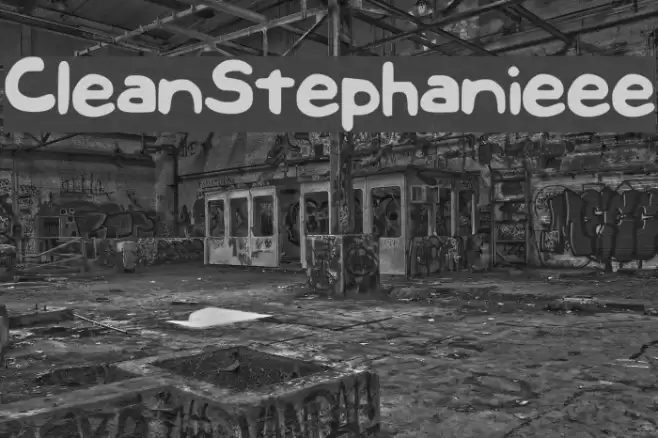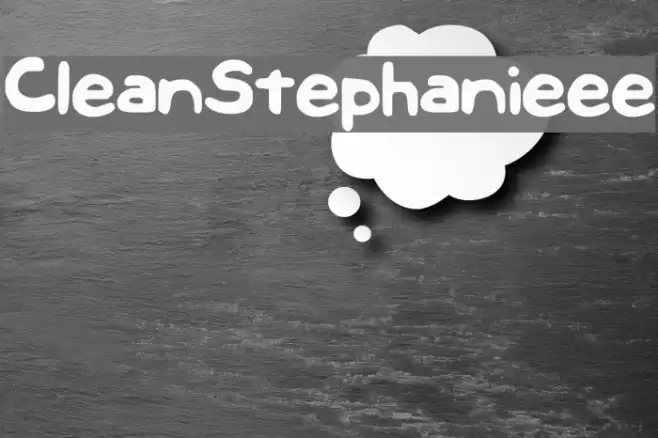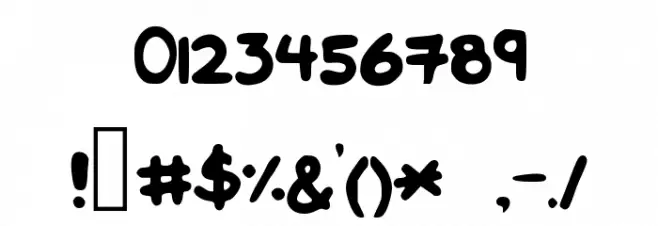
CleanStephanieee Font
CleanStephanieee Description
This playful and bold font features rounded, thick strokes that give it a friendly and approachable appearance. The characters are slightly irregular, adding a whimsical touch to the overall design. The uppercase and lowercase letters maintain a consistent style, with a uniform thickness that ensures readability. The numerals and special characters are designed to match the playful nature of the alphabet, making this font suitable for creative and informal projects. Its boldness and unique character shapes make it stand out, while the rounded edges soften its impact, making it versatile for various applications.
A playful, bold font with rounded, thick strokes and a whimsical style from Handwritten fonts.
- Proposed Projects: Ideal for children's books, playful branding, casual invitations, and creative posters.
- Overall Style: Playful